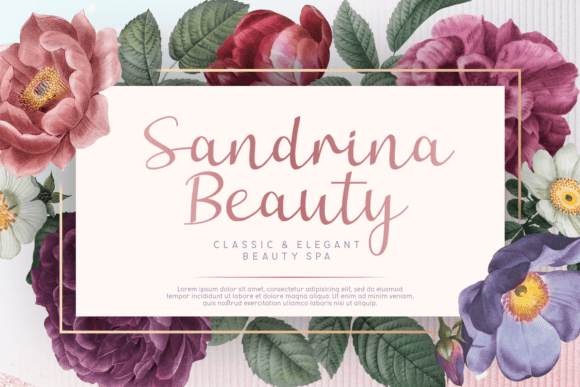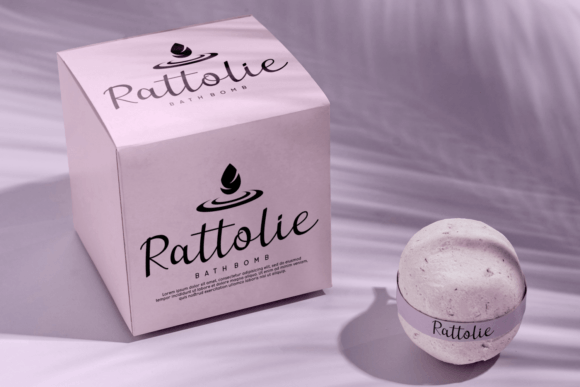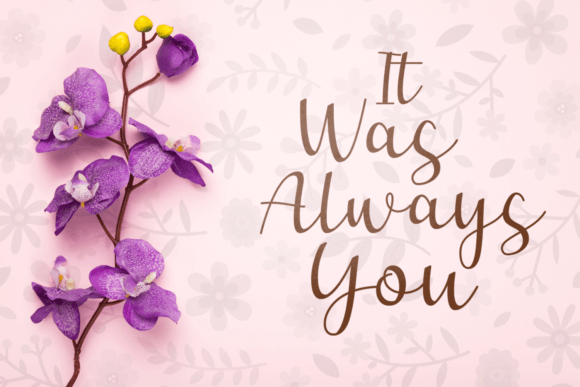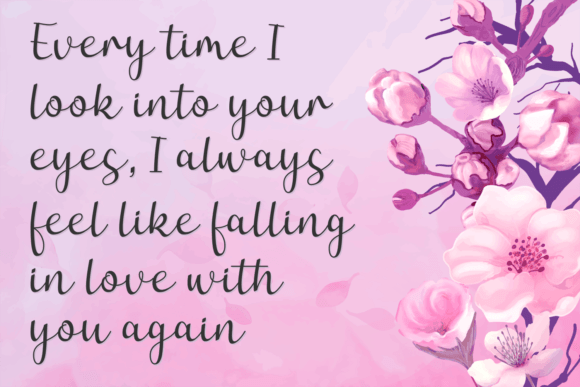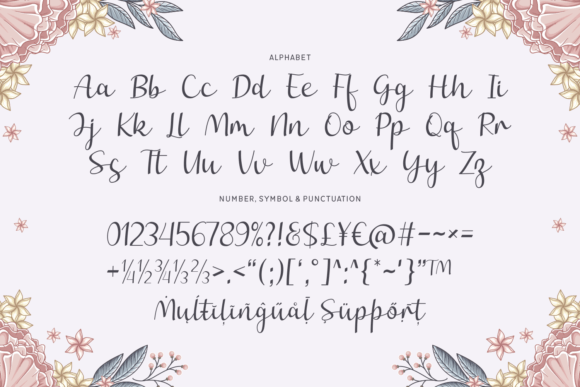
After December Font
A Beautiful and Classy Script Font
The After December Font is a beautiful and classy script typeface designed to bring elegance and authenticity to any design project. With its graceful strokes and sophisticated style, this font is perfect for a variety of creative applications. Whether you’re working on invitations, greeting cards, logos, or labels, the After December Font adds a refined, personal touch to your designs.
The After December Font is ideal for invitations and greeting cards. Whether you’re designing wedding invitations, birthday cards, or holiday greetings, this font brings a timeless elegance to your stationery. Its scripted characters create an authentic, sophisticated feel, making it perfect for special occasions that require a refined touch.
Great for Logos and Branding
For logos and branding projects, the After December Font offers a classy and unique aesthetic that ensures your brand stands out. Whether you’re working on a luxury brand, creative business, or fashion line, this font adds an element of authenticity and charm to your logo and brand identity. Its classy design helps convey a high-end, professional image.
Ideal for Labels and Product Packaging
For labels and product packaging, the After December Font provides an elegant touch that enhances the presentation of your products. Whether you’re designing food labels, cosmetic packaging, or gift tags, this font adds a personalized, luxurious feel to your designs. Its classic script style ensures your product stands out on the shelf or in promotional materials.
Elegant, Legible, and Timeless
Despite its scripted elegance, the After December Font is legible and easy to use. Its carefully crafted strokes ensure that your text remains clear and readable, even in smaller sizes or for longer passages. Whether you’re designing headlines, captions, or full-body text, this font strikes the perfect balance of elegance and clarity, making it suitable for a wide range of projects.
PUA Encoded for Easy Access to Glyphs and Swashes
The After December Font is PUA encoded, which means you can easily access all of its glyphs and swashes. This feature gives you the ability to fully customize your text by adding flourishes, ligatures, and decorative characters to your designs. Whether you’re working on custom logos or personalized invitations, this font gives you the flexibility to create unique, polished designs.
Add Elegance and Authenticity to Your Designs with After December Font
If you’re looking for a beautiful, classy, and authentic handwritten font to enhance your designs, the After December Font is the perfect choice. Whether you’re designing invitations, logos, labels, or greeting cards, this font brings a timeless, elegant touch to your work. Let the After December Font help you create memorable, refined designs that stand out with authenticity and style.